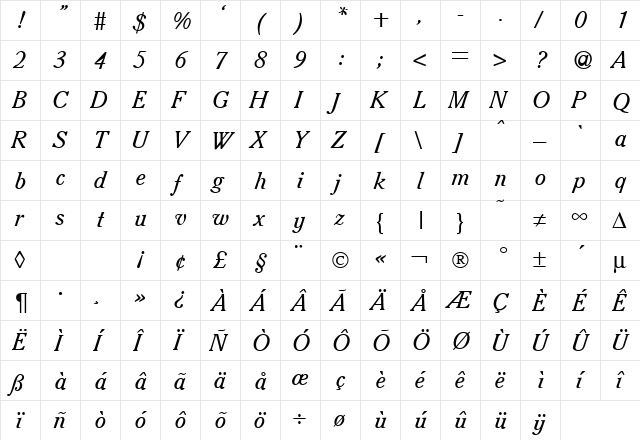
Sorbet RegularItalic
Design Context for Sorbet Typeface
Sorbet takes a measured approach to typography — its balanced proportions and neutral character make it a reliable workhorse for both digital and print work. The slanted form adds forward momentum and visual energy.